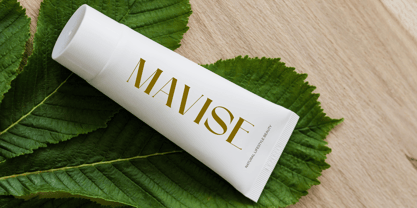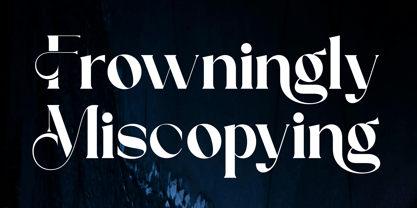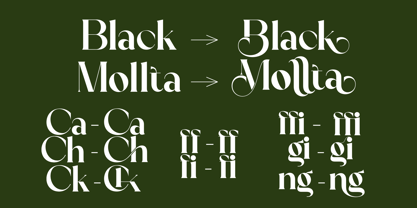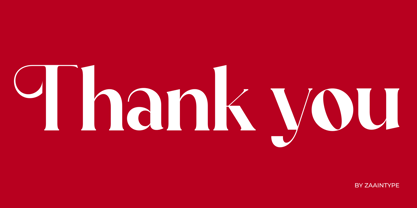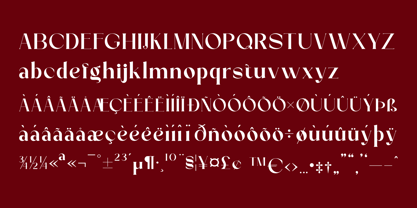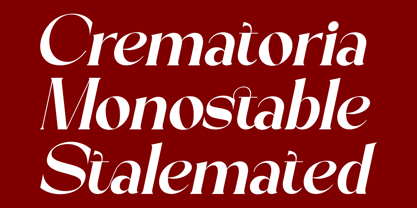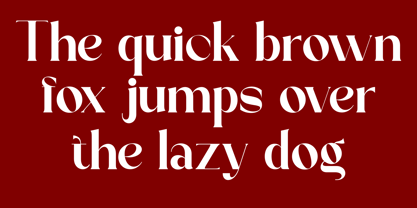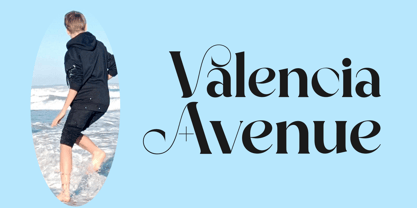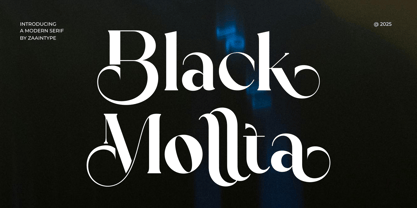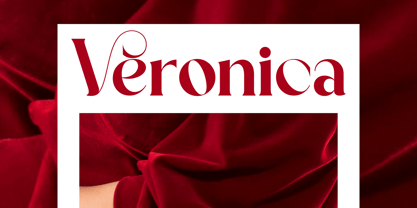
Black Mollta
by Zaain Type
The Black Mollta Font Family was designed by Ju Naen and published by Zaain Type. Black Mollta contains 2 styles and family package options.
Black Mollta is a high-contrast serif font that blends classic elegance with a bold modern touch. With its striking thick-thin contrast, this font is perfect for premium branding, editorial, fashion, and luxury design.
Available in two styles:
• Regular – A perfect balance of elegance and readability, ideal for main text and headlines.
• Oblique – A slanted version that adds a dynamic and stylish feel, perfect for more expressive designs.